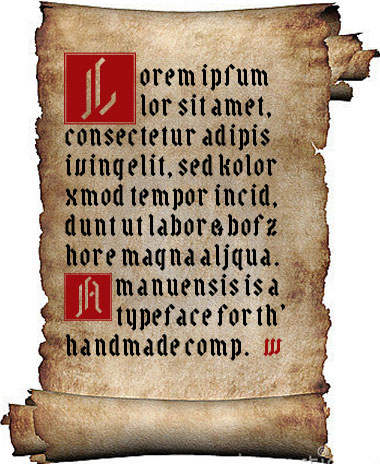
Amanuensis
A sort of blackletter with no historical references. 0 is meant for layering of the drop-caps. It needs extended latin characters and diacritics, but you can typeset Latin with it! :-)
These drop caps are just gorgeous! All the more impressive considering the 45° angle constraint. Well done.
One suggestion: flip the U horizontally. The current form reads, but that spur on the left side feels out of place to me. Will flipping break the polish of the design motif too much? Perhaps another solution can be found without adding too many novel rules just for the one character...
A simple Black. Nice work
love the lowercase as well... well balanced.
Caps were the hardest ones (which I think it’s the norm with blackletters ;-)
After some struggle, I’m pretty satisfied with the stencil-like result.
About the U, you’re right (especially comparing it with lowercase u and v). I haven’t just flipped it for the reason you already guessed.
I will experiment further.
(Though I’m not sure I can change it during the competition’s review time)
I suppose that means I now need to get serious about proper punctuation and language support... ;-)
Somehow I managed to miss this beautiful creation when it was released, but I'm very happy to see it now. Great work! 10/10.
I'm gonna Xpand™ this!